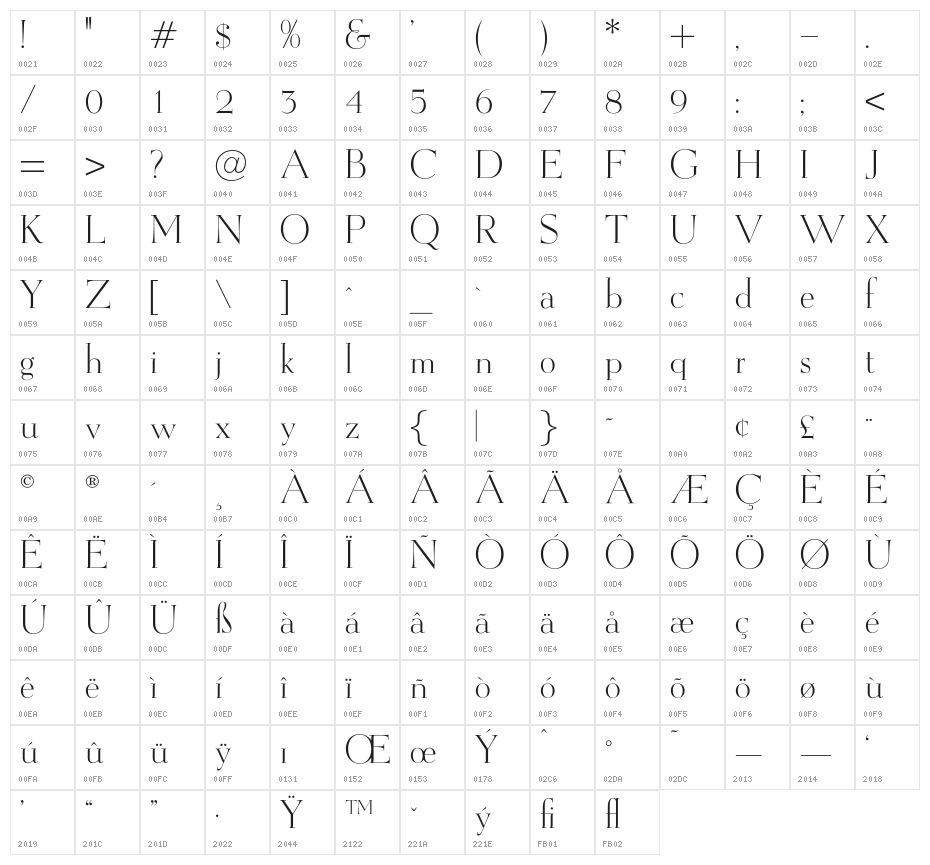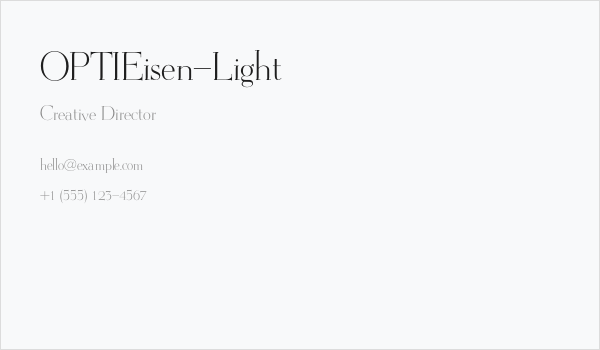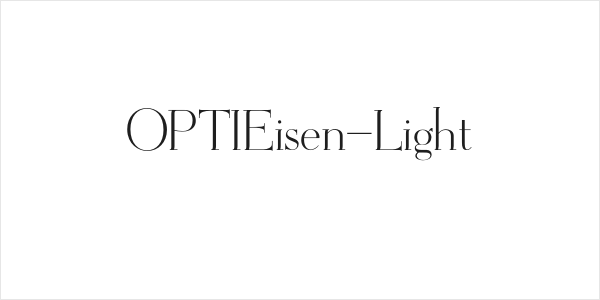
OPTIEisen-Light Font
OPTIEisen-Light Description
This font exhibits a refined and elegant serif style, characterized by its thin, elongated strokes and high contrast between thick and thin lines. The uppercase letters are tall and stately, with a classic serif design that adds a touch of sophistication. The lowercase letters maintain a consistent style, with smooth curves and sharp serifs that enhance readability. The numerals are well-proportioned, aligning seamlessly with the overall aesthetic. Special characters are thoughtfully designed, maintaining the font's elegant and modern appearance. This font is ideal for projects that require a touch of class and sophistication, such as luxury branding, editorial design, and high-end packaging.